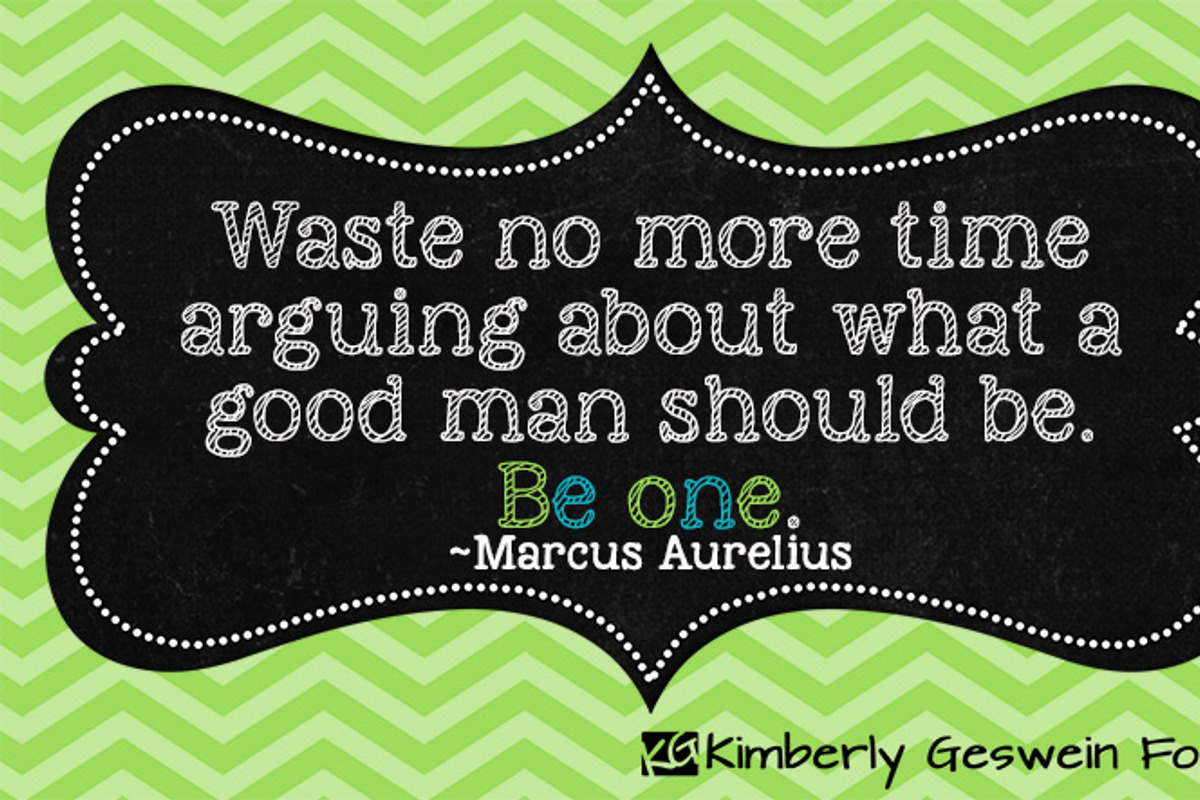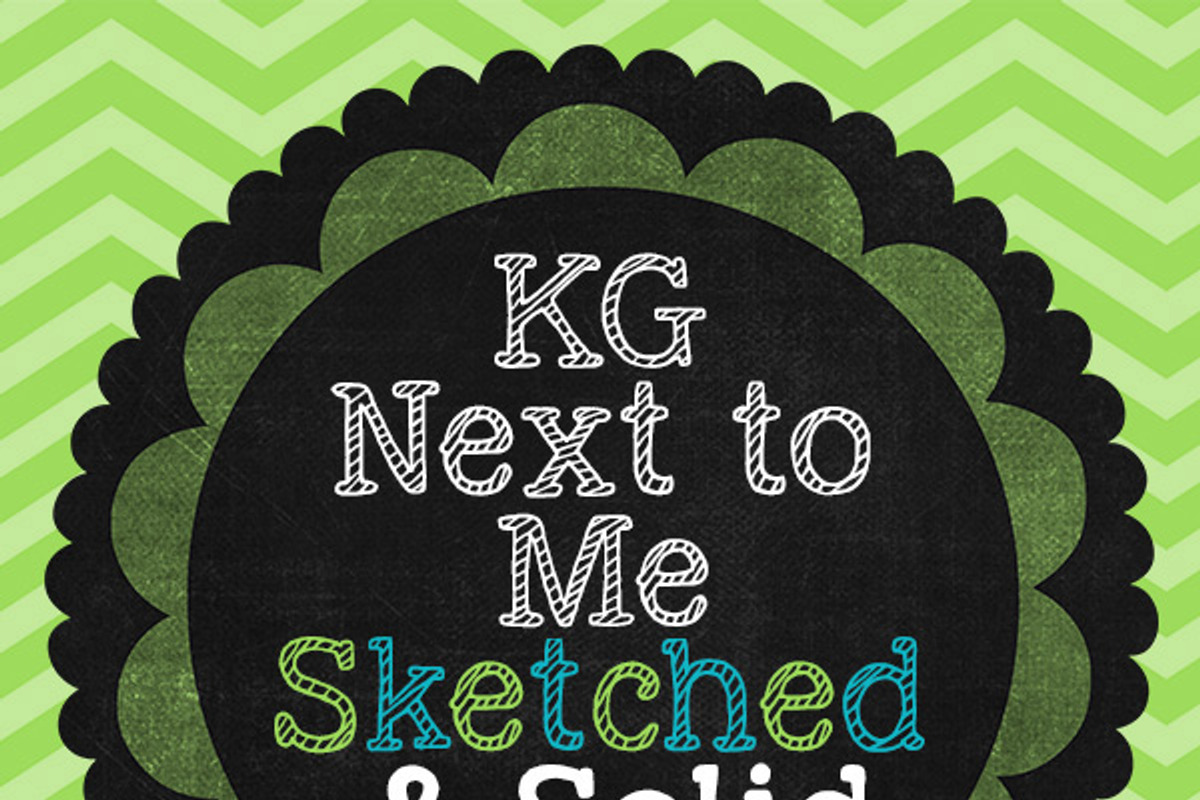
KG Next to Me Sketched and Solid
KG Next to Me Sketched and Solid by Kimberly Geswein Fonts is a font selected for branding, posters, packaging, typography.
- This contains one stripey and one solid font.
- KG Next to Me Sketched Regular
- KG Next to Me Solid Regular
Why KG Next to Me Sketched and Solid is worth a look
KG Next to Me Sketched and Solid by Kimberly Geswein Fonts fits naturally into Branding, posters, packaging, typography.